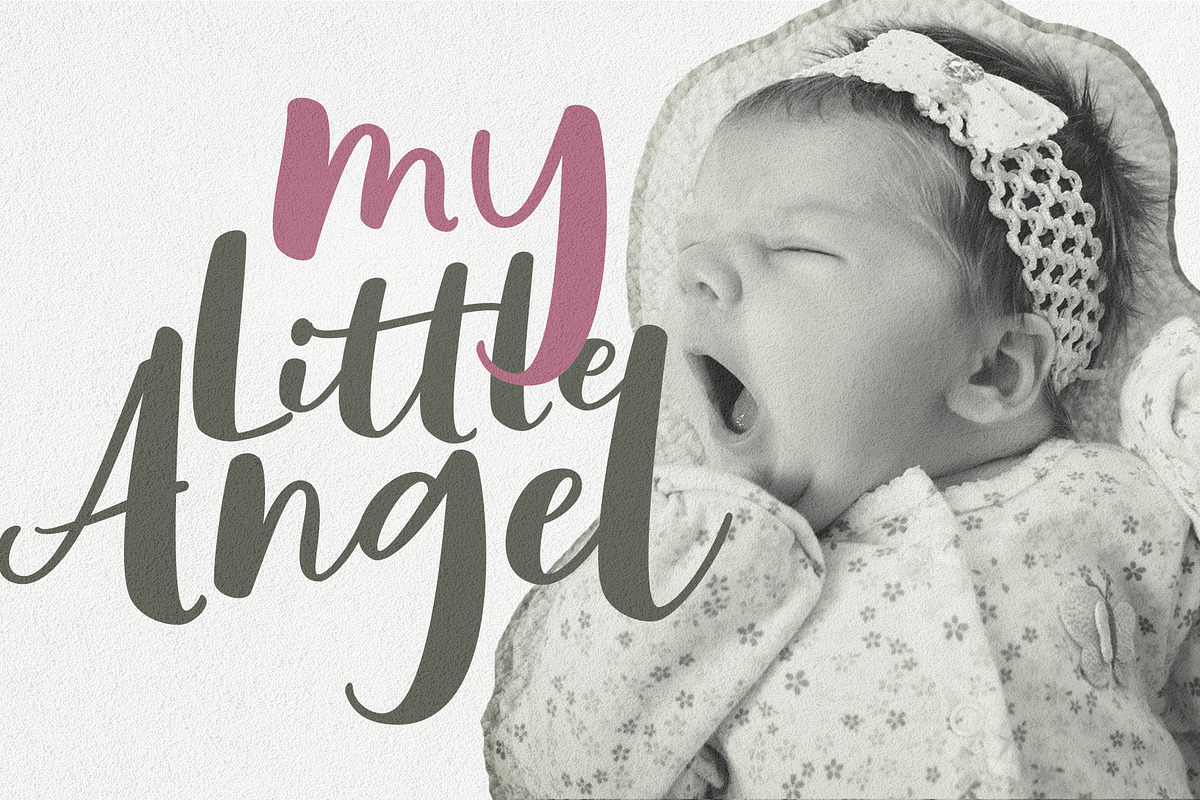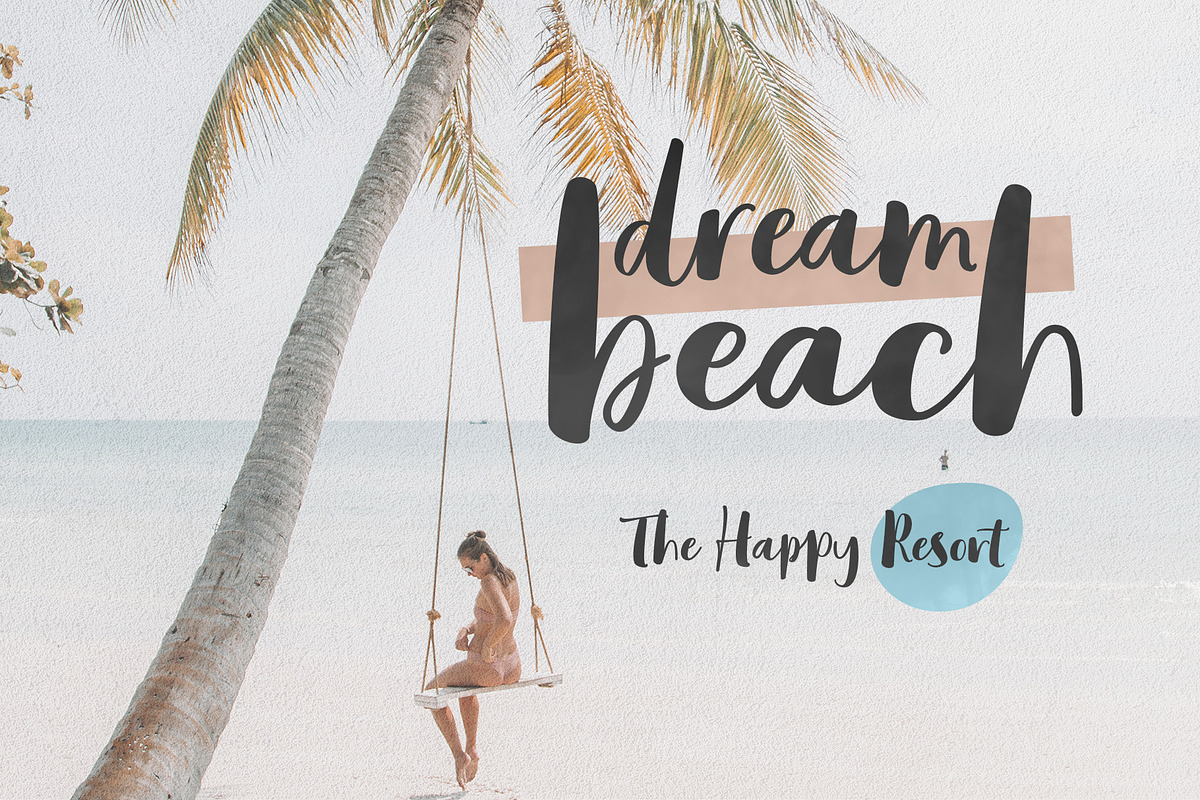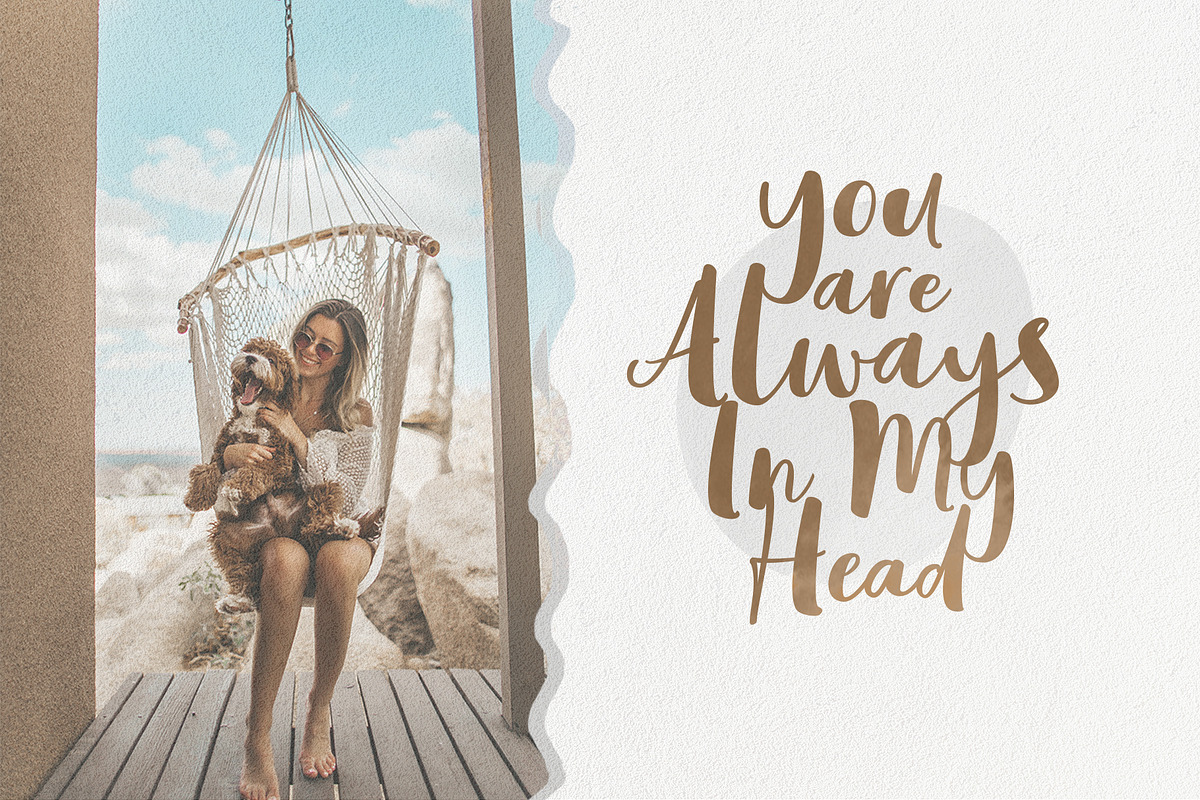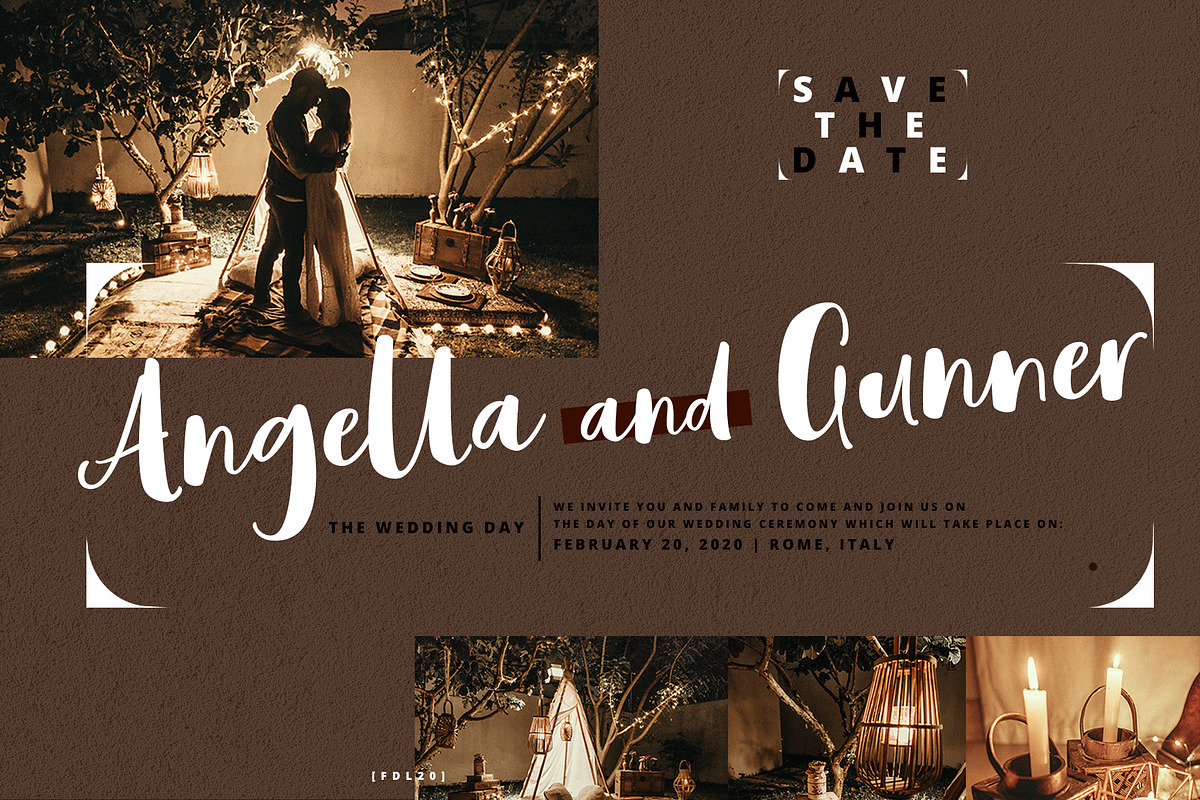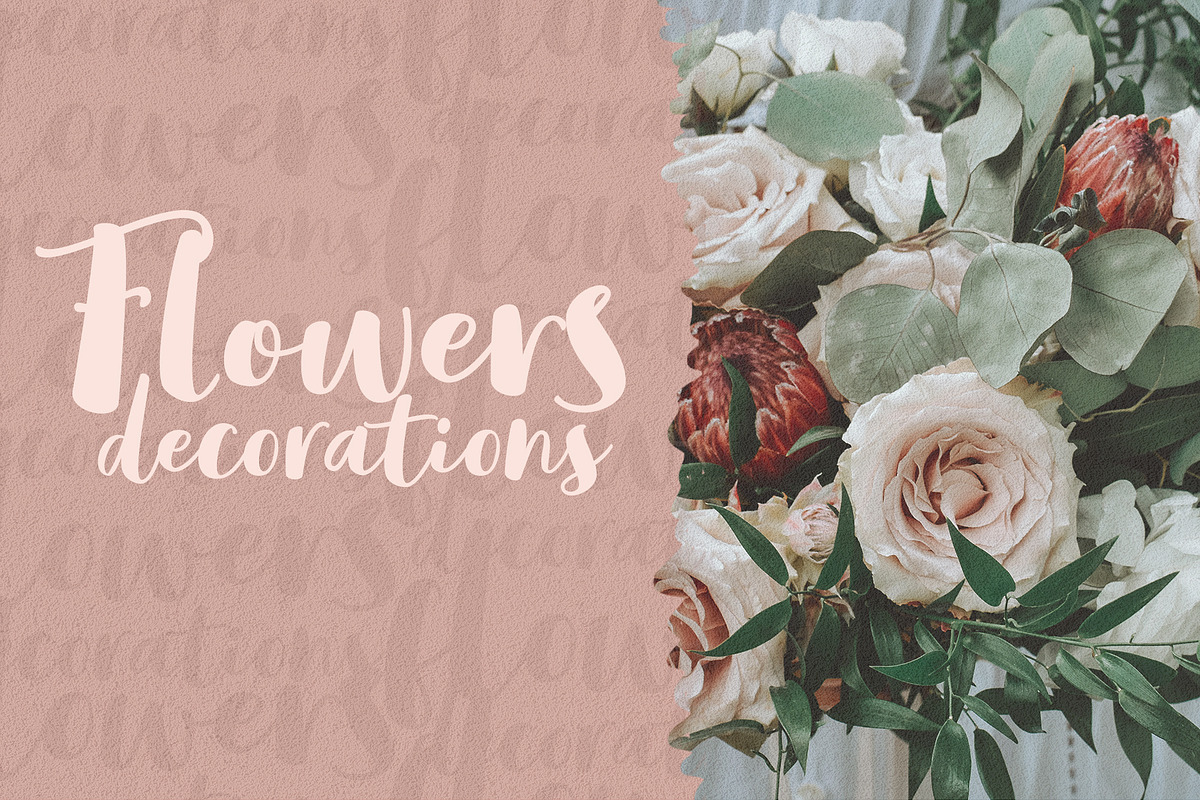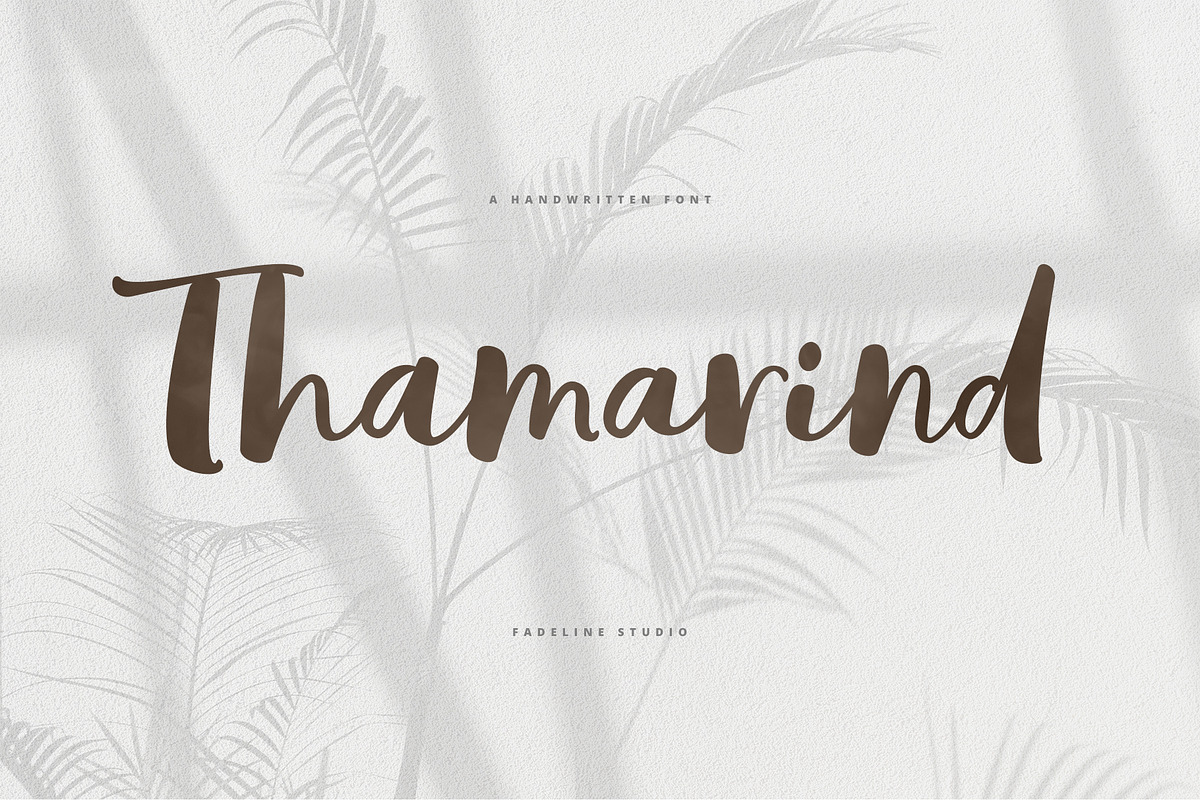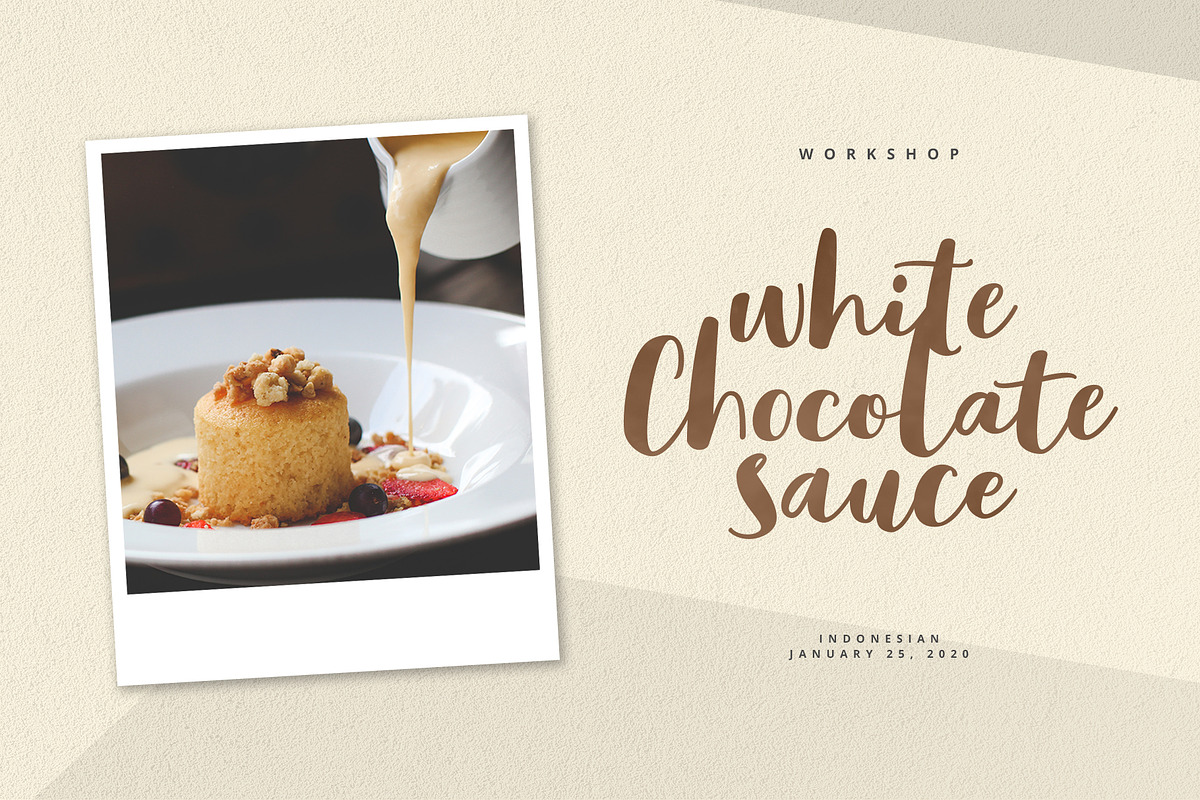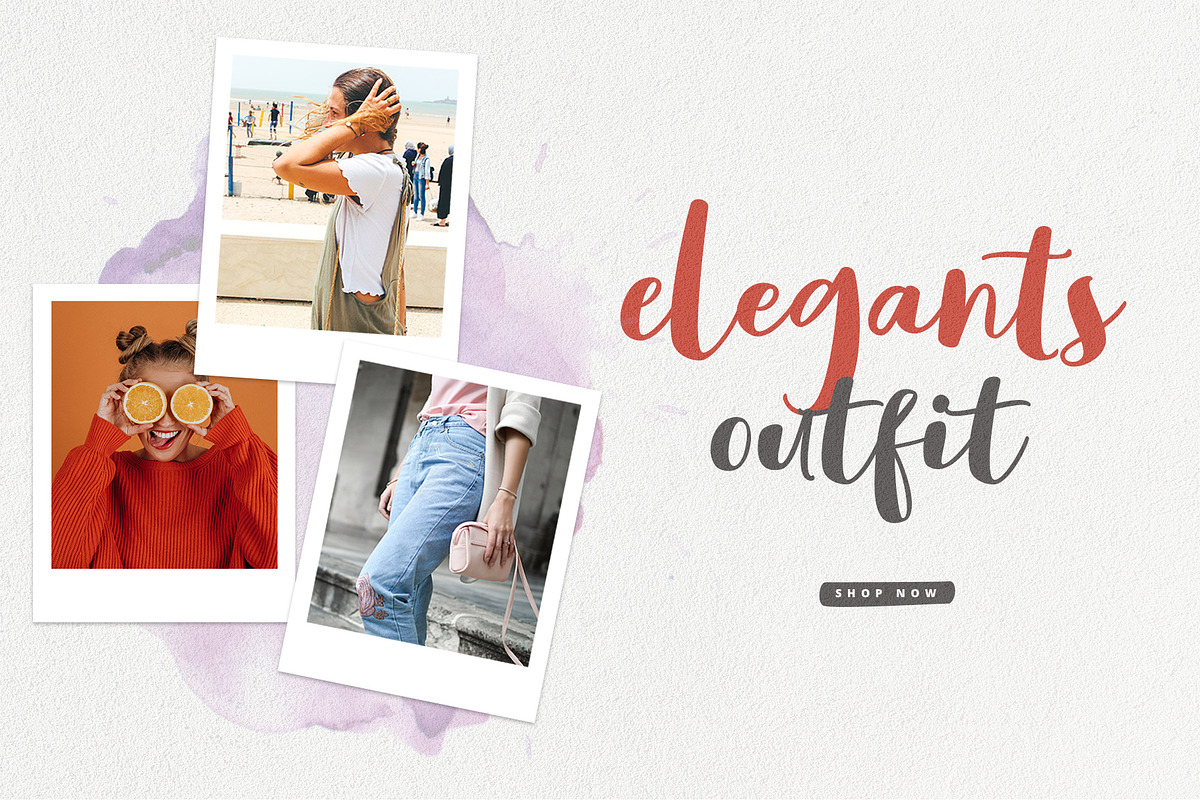
Thamarind Handwritten Font
Thamarind is a new fun and unique new handwritten script font. This font adopts a bold, cute, firm, and trendy style. Very suitable to meet your various design needs that are trending now.
With a style like this, this font will be suitable in use for comic, logo's, branding projects, homeware designs, product packaging, mugs, quotes, posters, shopping bags, logo's, t-shirts, book covers, name card, invitation cards, greeting cards, and all your other lovely projects.
You can use this font for your job very easily. Because there are many features in it. Contains the complete set of lower and uppercase letters, punctuation, numbers, web fonts, and multilingual support. This font also includes several ligatures and alternative style Stylistic Set For those of you who have software that is capable of working OpenType (Corel Draw / Photoshop / Illustrator / InDesign).
Thamarind Handwritten Font by FadeLine Studio fits naturally into Branding, posters, packaging, typography.